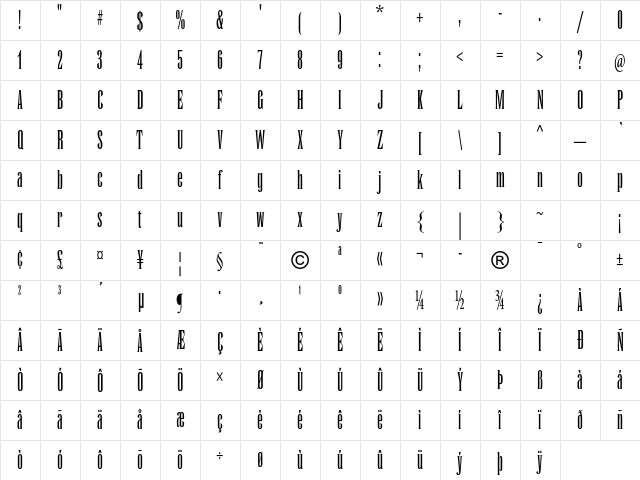
Runic MT Std Condensed
Style: Condensed
Designer: Unknown
Design Context for Runic MT Std
Runic MT Std is a composed and adaptable typeface that performs quietly and consistently across a wide range of design contexts. Its narrow stance lets it pack a punch even in space-constrained designs.